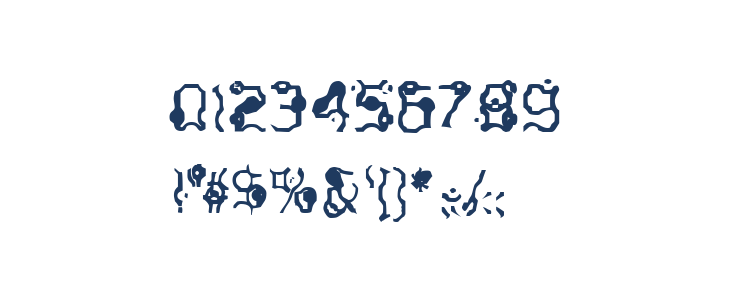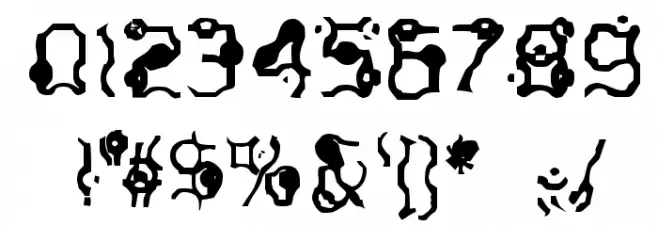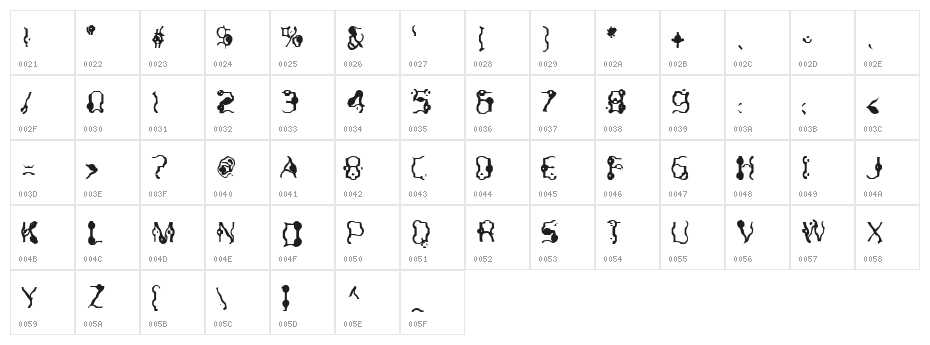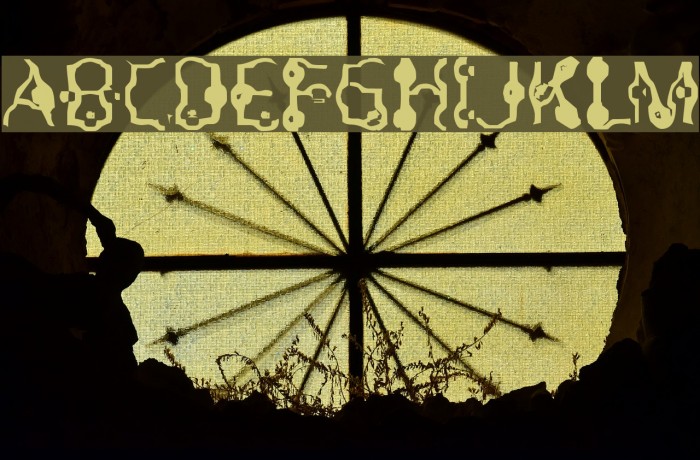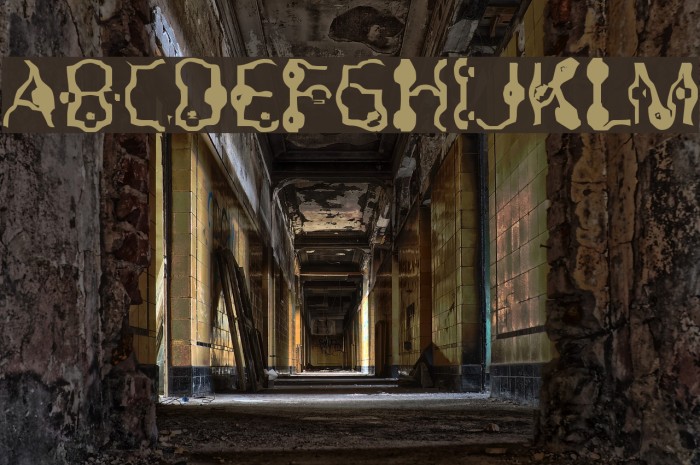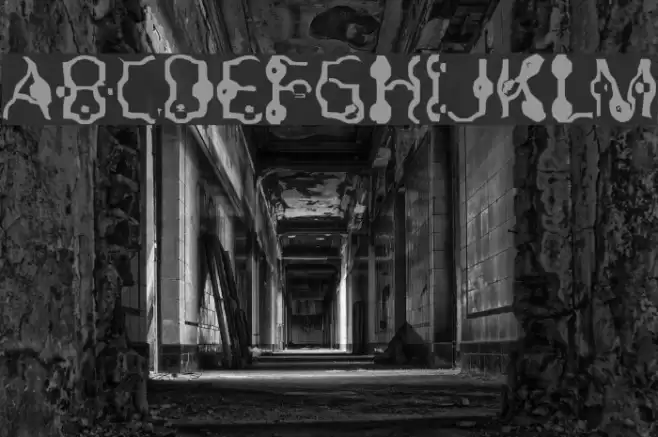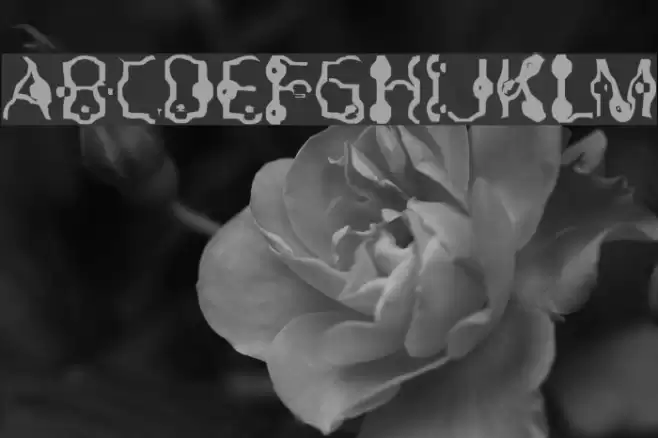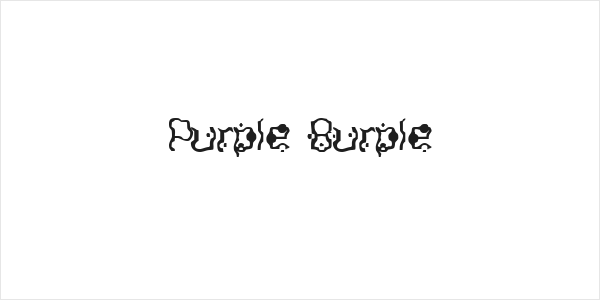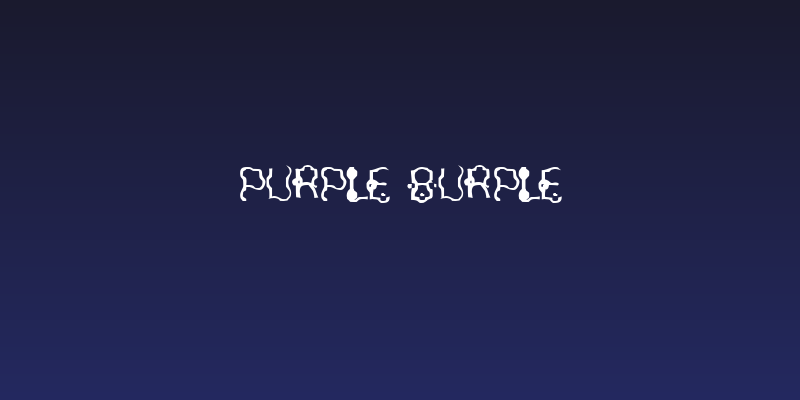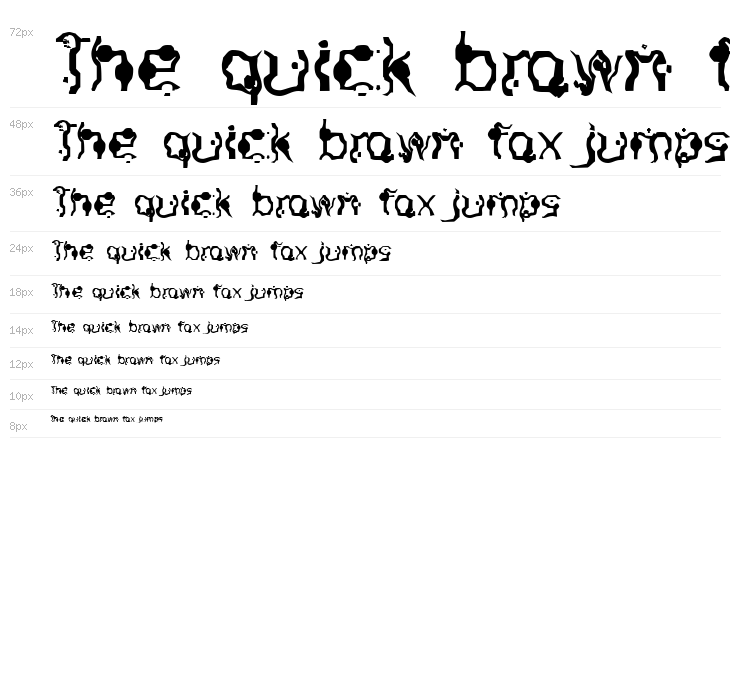
Purple Burple Font
Purple Burple Description
This font features a highly decorative and abstract design, with each character appearing as if it is composed of organic, fluid shapes. The letters are interconnected with unique, artistic flourishes that give them a sense of movement and dynamism. The overall appearance is bold and eye-catching, making it suitable for creative and unconventional projects. The font's intricate details and irregular forms suggest a hand-drawn or experimental style, which can add a distinctive touch to any design. Its playful and artistic nature makes it ideal for projects that require a strong visual impact.
| Proposed Projects | Ideal for album covers, posters, artistic branding, and creative event invitations. |